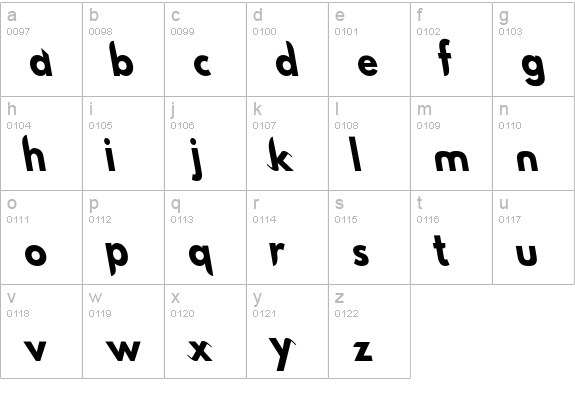
Poland Can Into Car Fixings... Or Not font is the ultimate typeface for all your automotive needs. Whether you're designing logos for car repair shops, creating flyers for auto shows, or crafting posters for car enthusiasts, this font is here to fulfill all your automotive typography cravings. With its bold and robust letterforms, Poland Can Into Car Fixings... Or Not exudes confidence and reliability, just like a well-maintained automobile. Its unique and distinctive design captures the essence of the automotive industry, making it the perfect choice for any car-related project. But what sets this font apart is its versatility. It can be used for both modern and vintage-inspired designs, adding a touch of nostalgia or a contemporary edge to your creations. Its clean and legible characters ensure readability even at small sizes, so you can use it for anything from headlines to body text. And the best part? Poland Can Into Car Fixings... Or Not font is available for free download at FontsMarket.com. Yes, you read that right – absolutely free! It's never been easier to add this powerful typeface to your design arsenal. Simply head over to FontsMarket.com, find the font, and download it with just a few clicks. So, whether you're a professional designer or a car enthusiast with a passion for graphic design, Poland Can Into Car Fixings... Or Not font is a must-have. Its striking design and easy accessibility make it the ideal choice for all your automotive-inspired projects. Don't miss out on this opportunity to take your designs to the next level. Download Poland Can Into Car Fixings... Or Not font today, for free, at FontsMarket.com.